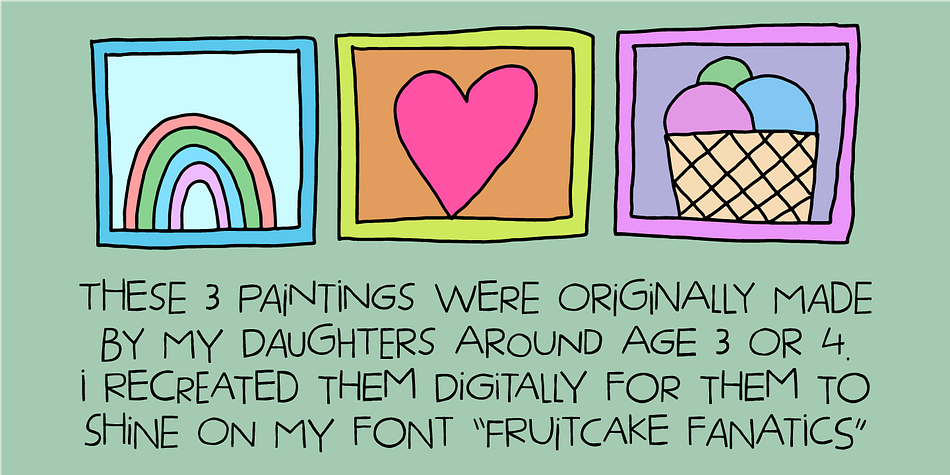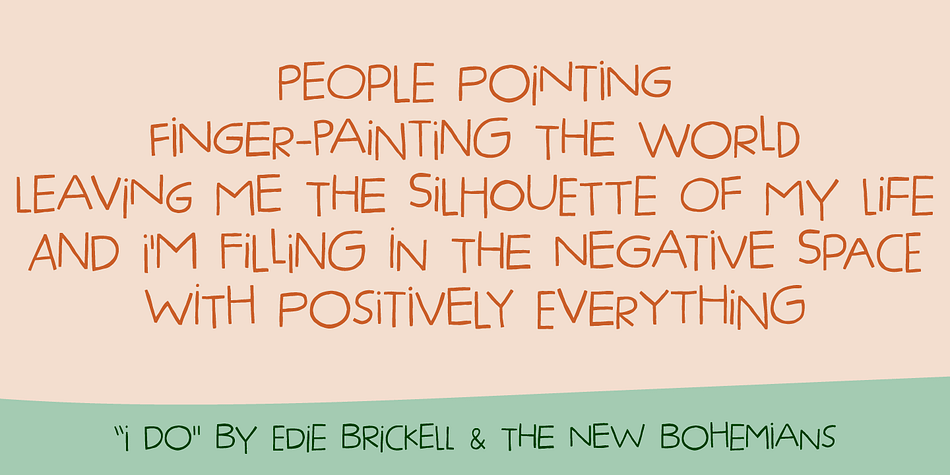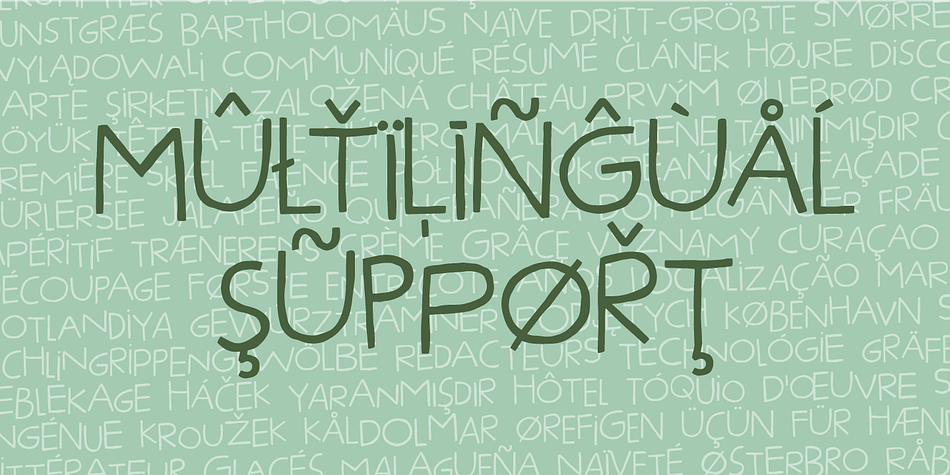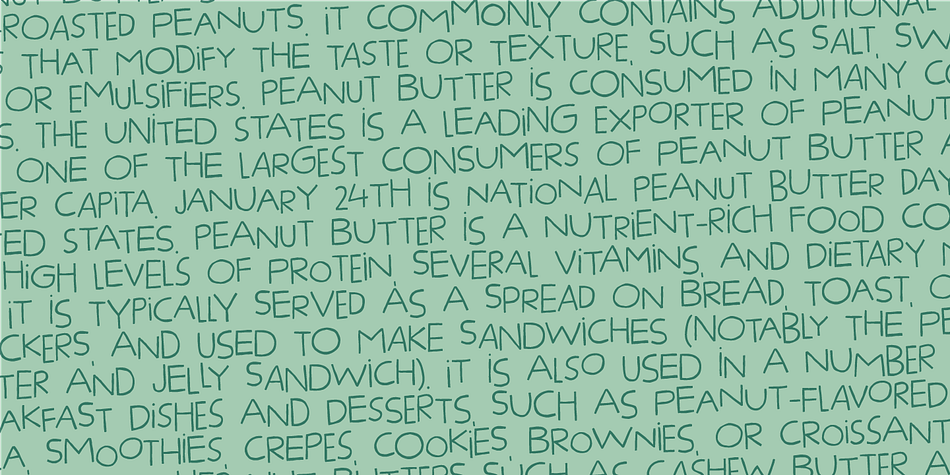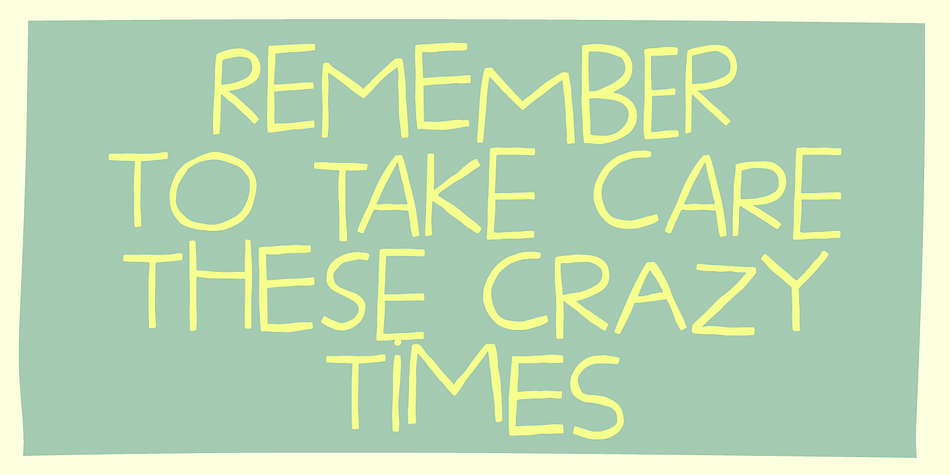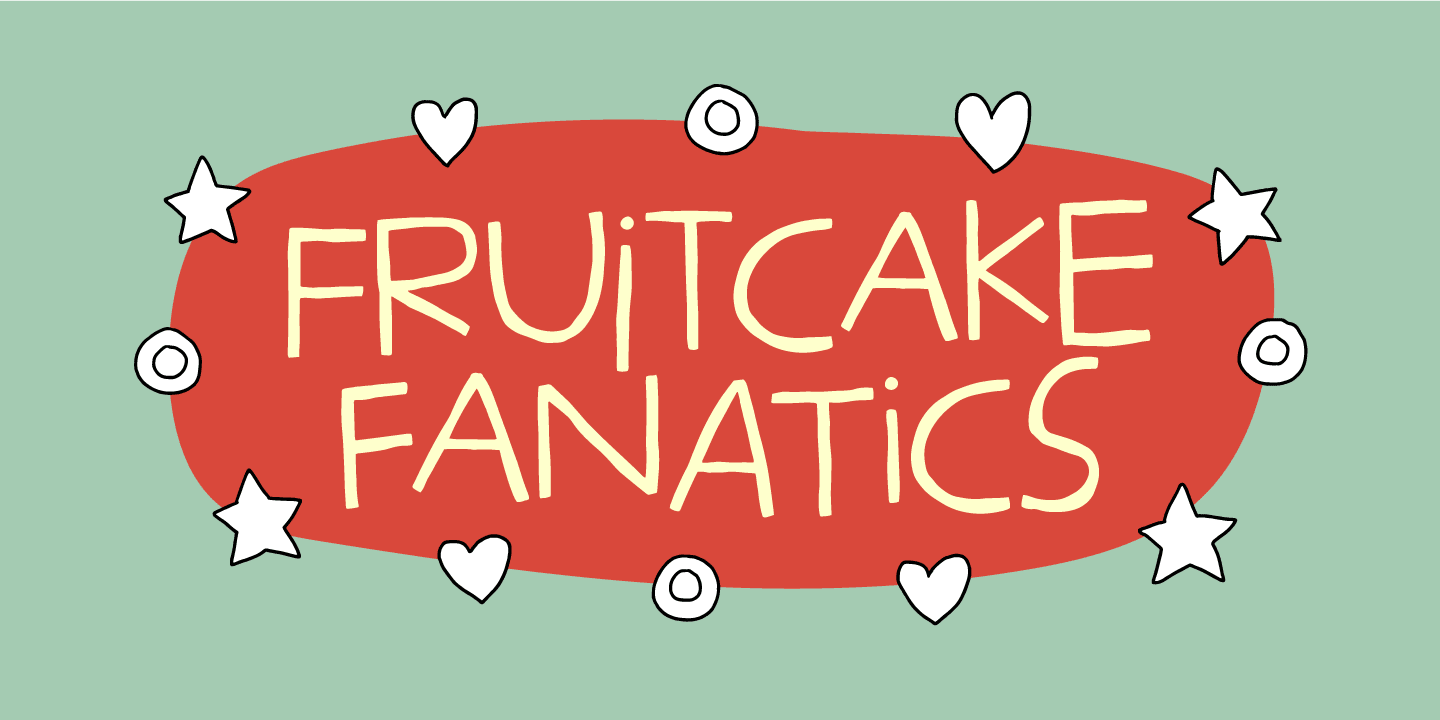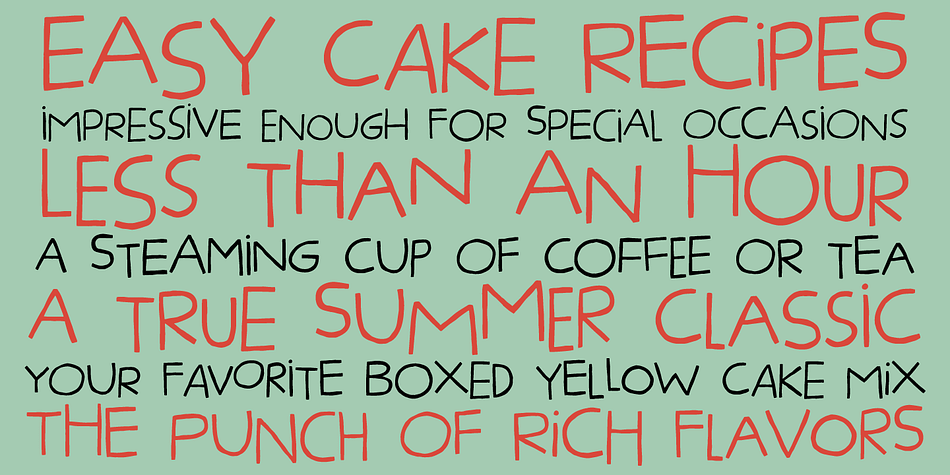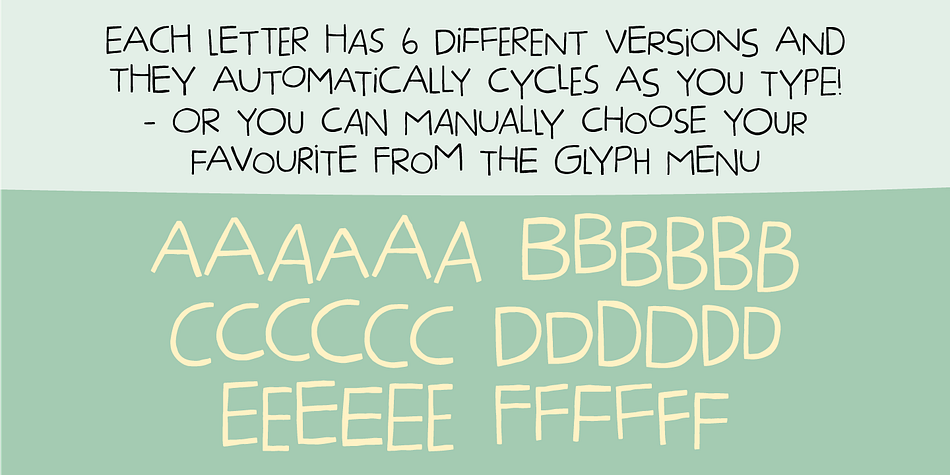
Fruitcake Fanatics
Designed by Jakob Fischer, Fruitcake Fanatics is a hand display and hand drawn font family. This typeface has two styles and was published by Bogstav.
I have had the name “Fruitcake Fanatics” in my mind for quite some time now…but I needed a font that suited the name…then one day…actually last Wednesday, I was playing around with some letters (which eventually would turn out to be this font!) and suddenly it struck me: I got the letters for my Fruitcake Fanatics font!
Another story could be - what does the name mean?! Well, to tell you the truth, I don’t know - but what I do know is that the font is playful and unpredictable and loads of fun!